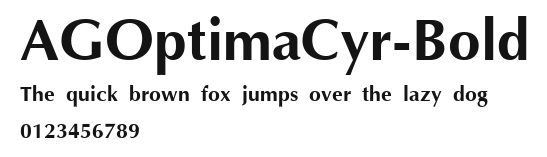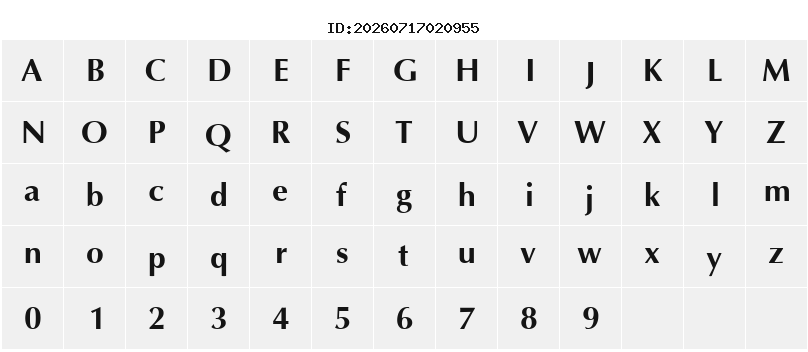
AGOptimaCyr-Bold Preview
• Font Name: AGOptimaCyr-Bold
About AGOptimaCyr-Bold.ttf
AGOptimaCyr-Bold.ttf is a modern, elegant sans-serif font designed for ultimate readability and visual harmony. Perfect for branding, headlines, web design, and print materials.